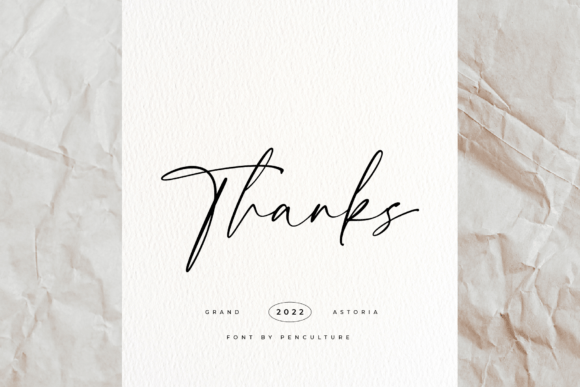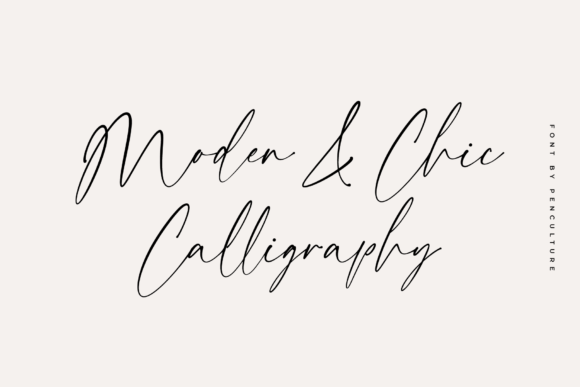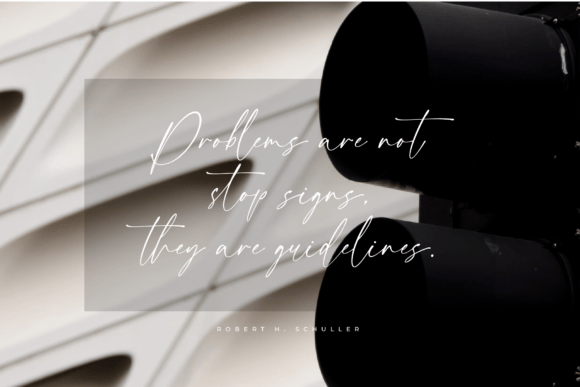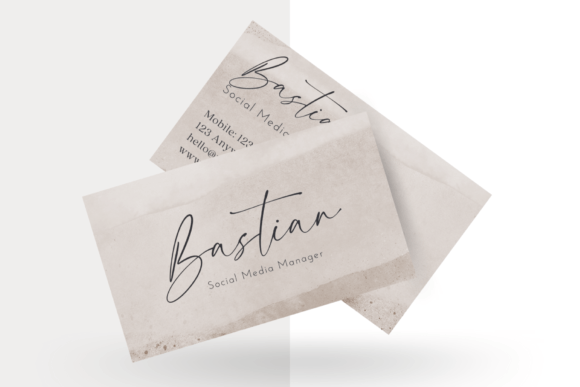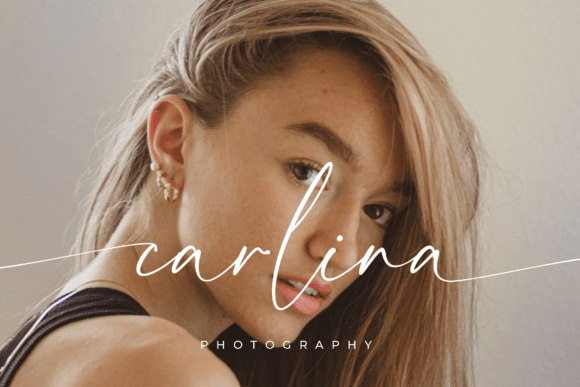
About Grand Astoria Font
Grand Astoria is an exquisite handwritten font, masterfully designed to become a true favorite. It maintains its classy calligraphic influences while feeling contemporary and fresh. Fall in love with it and bring your projects to the highest levels!